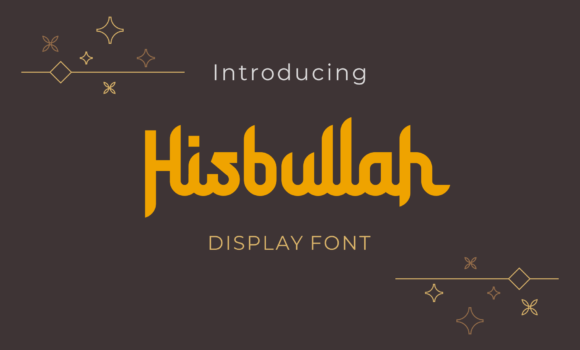
Hisbullah Font – Free Download Introduction to Hisbullah Font Hisbullah is a bold, unique and stylish display font with an Arabic look. 📸 Preview Gallery 6 images 📌 Product Name Hisbullah Font 👤 Author ARToni 📂 Category Explore ⬇️ Download